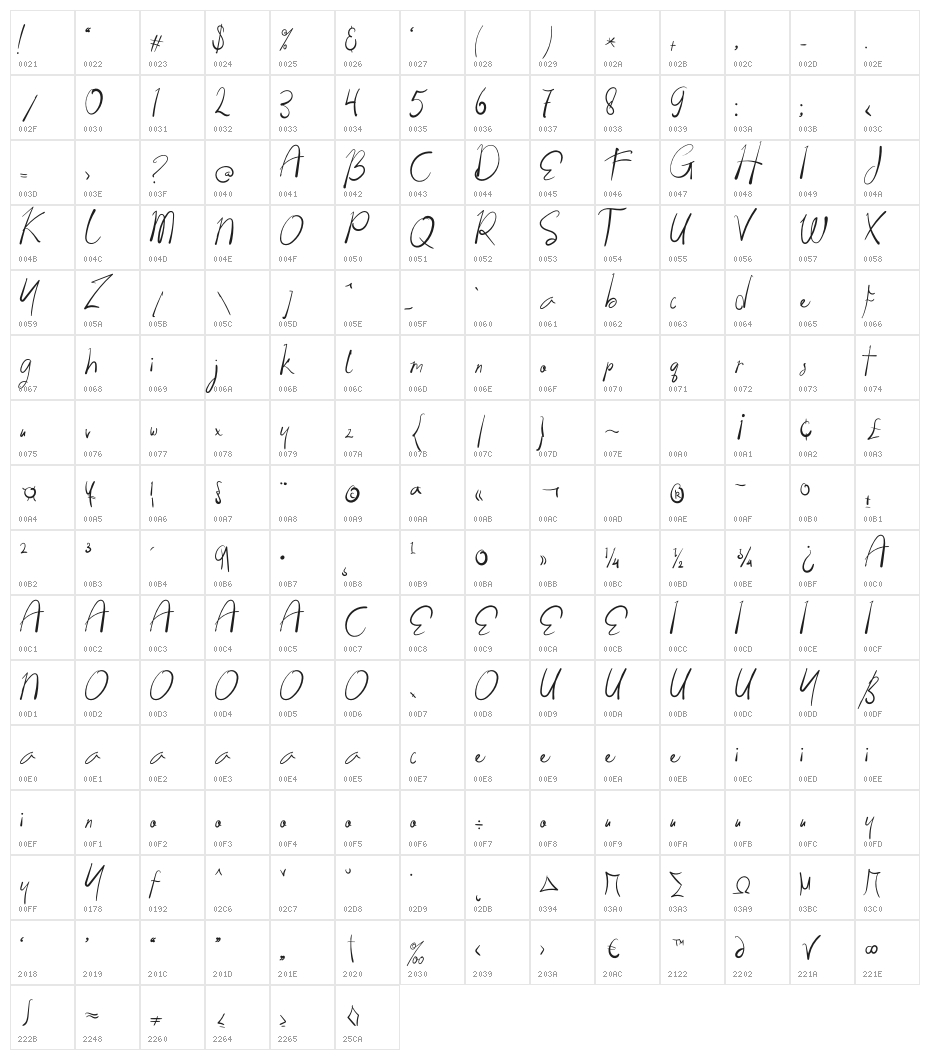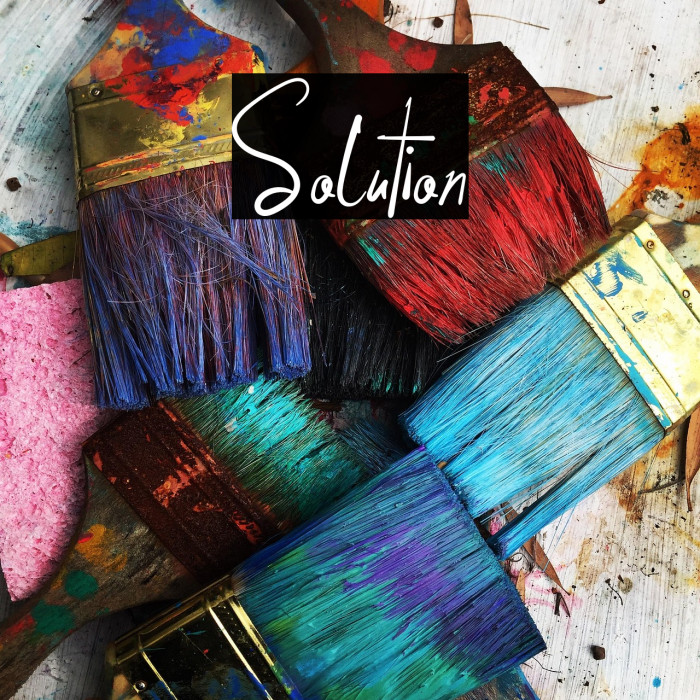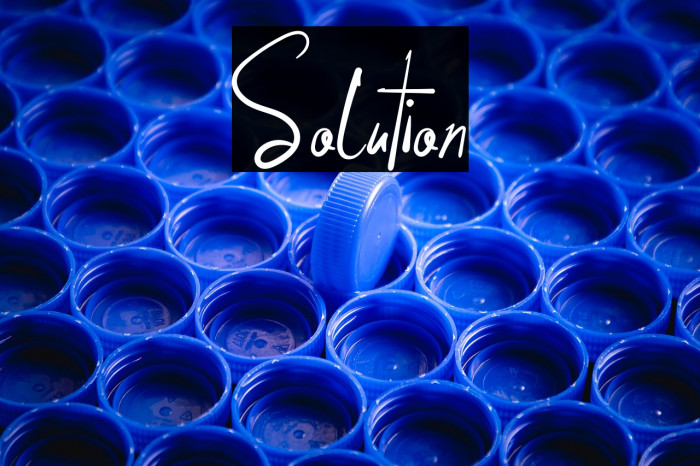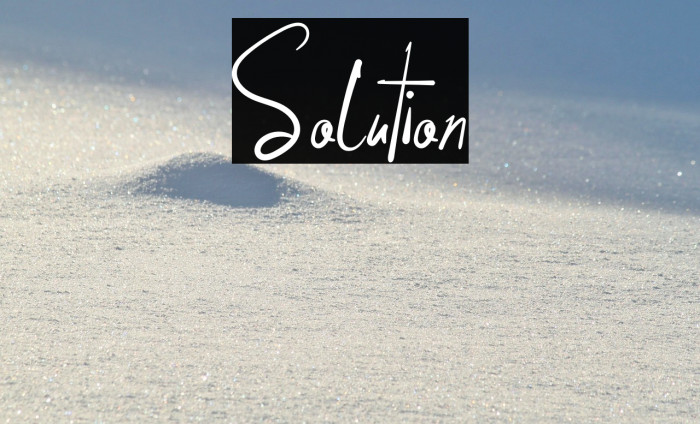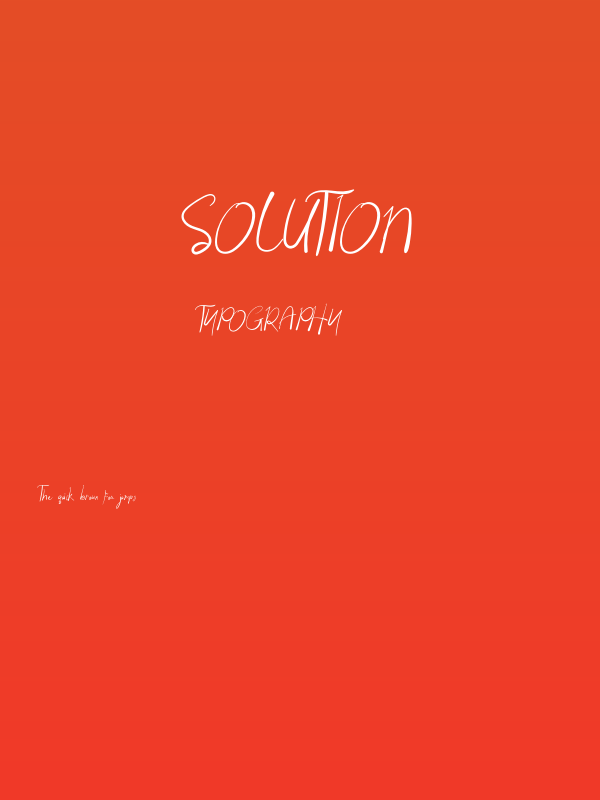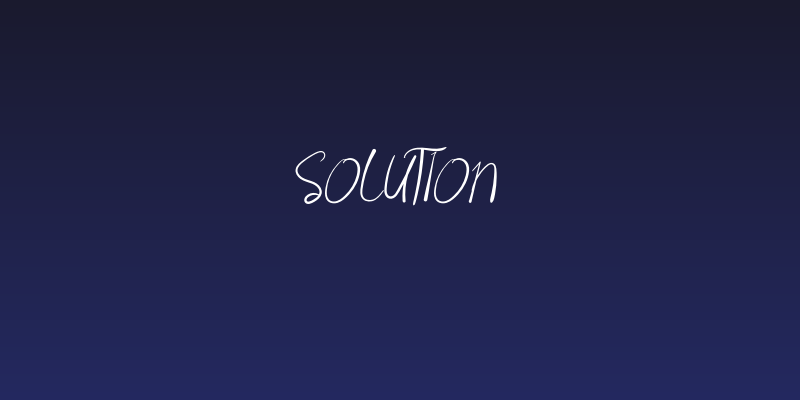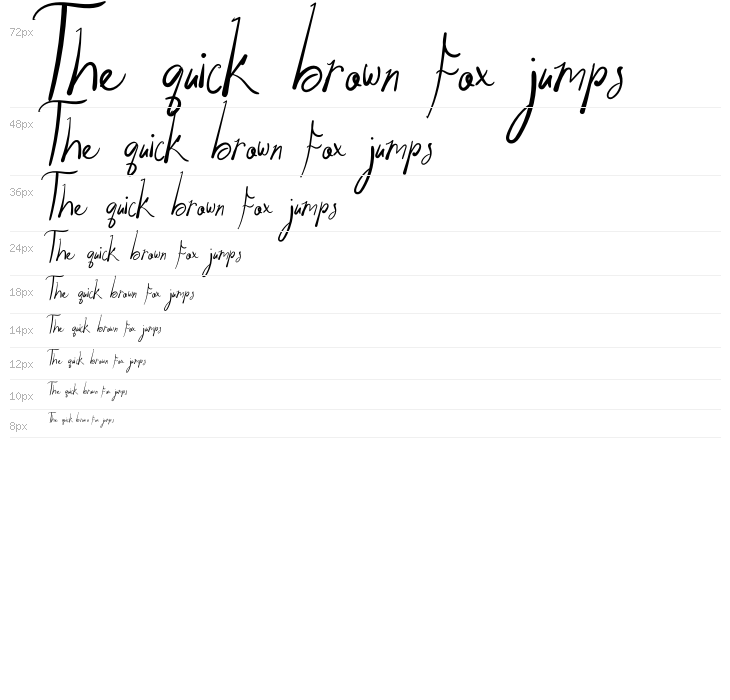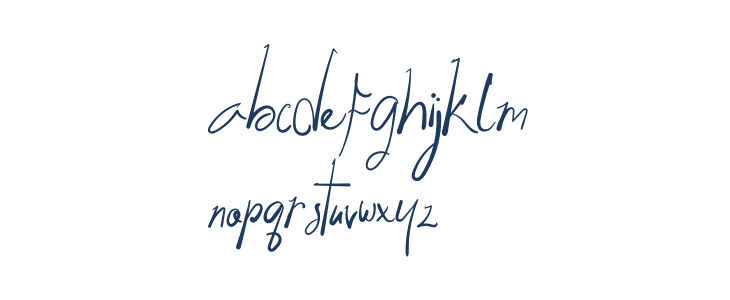
Solution Font
Solution Description
This font exhibits a lively and dynamic handwritten style, characterized by its fluid and expressive strokes. The uppercase letters are tall and slightly narrow, with a playful tilt that adds a sense of movement. The lowercase letters maintain a consistent flow, with some characters featuring unique loops and swashes that enhance the font's whimsical nature. The numerals are bold and slightly rounded, complementing the overall energetic feel. Special characters are creatively designed, maintaining the font's artistic flair. This font is perfect for projects that require a personal touch or a creative edge.
| Use Case | Logos, Headlines, Artistic projects |
| Proposed Projects | Ideal for greeting cards, invitations, artistic posters, and branding that requires a personal or creative touch. |